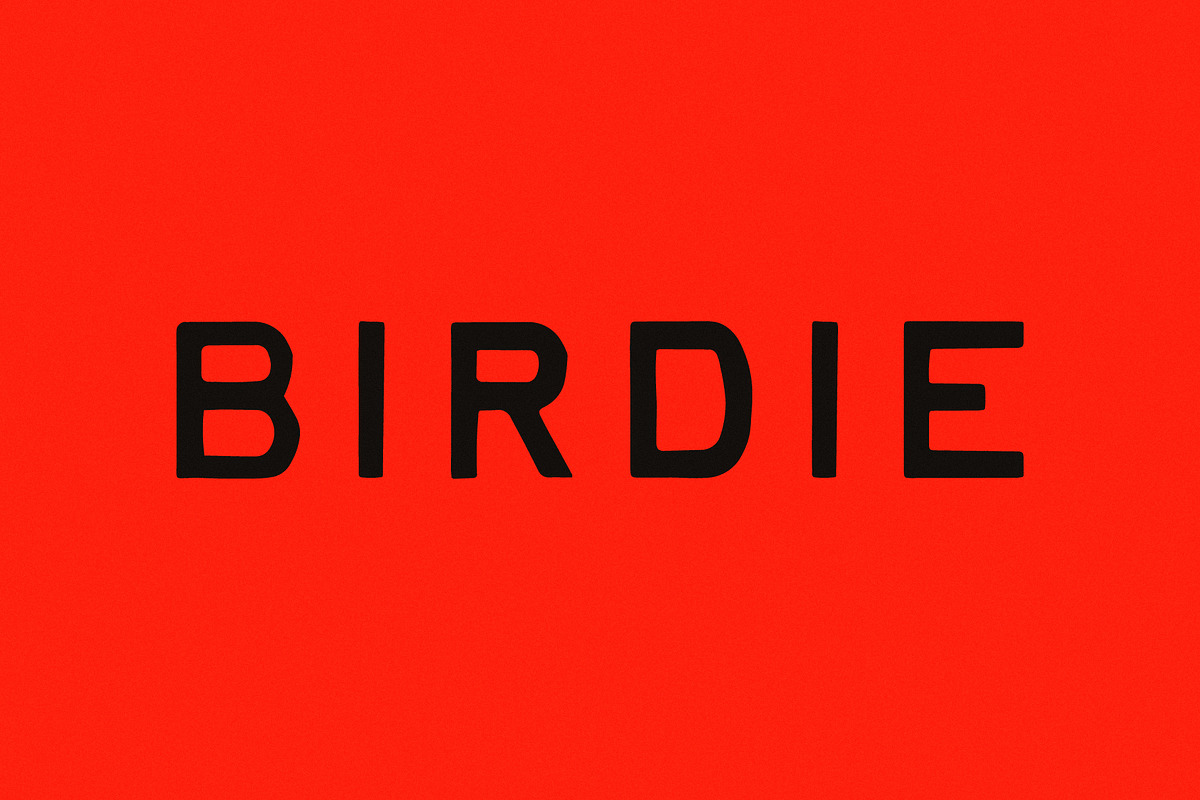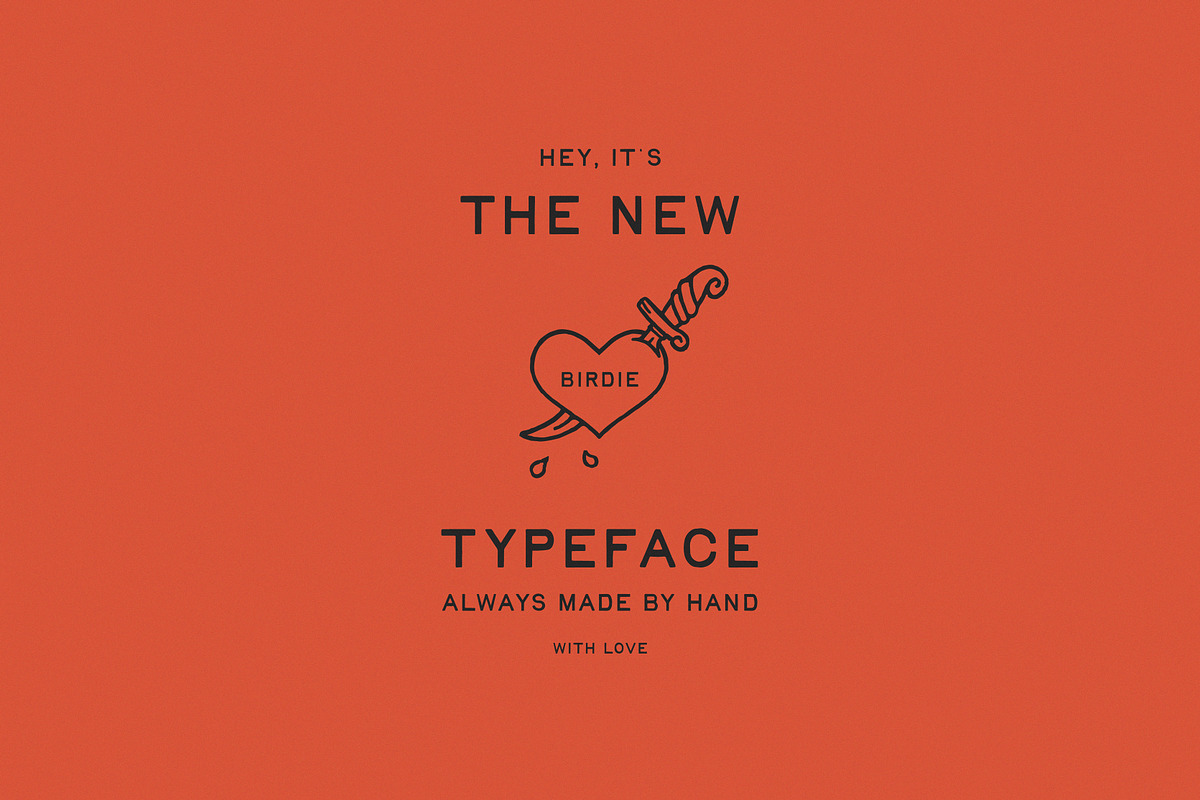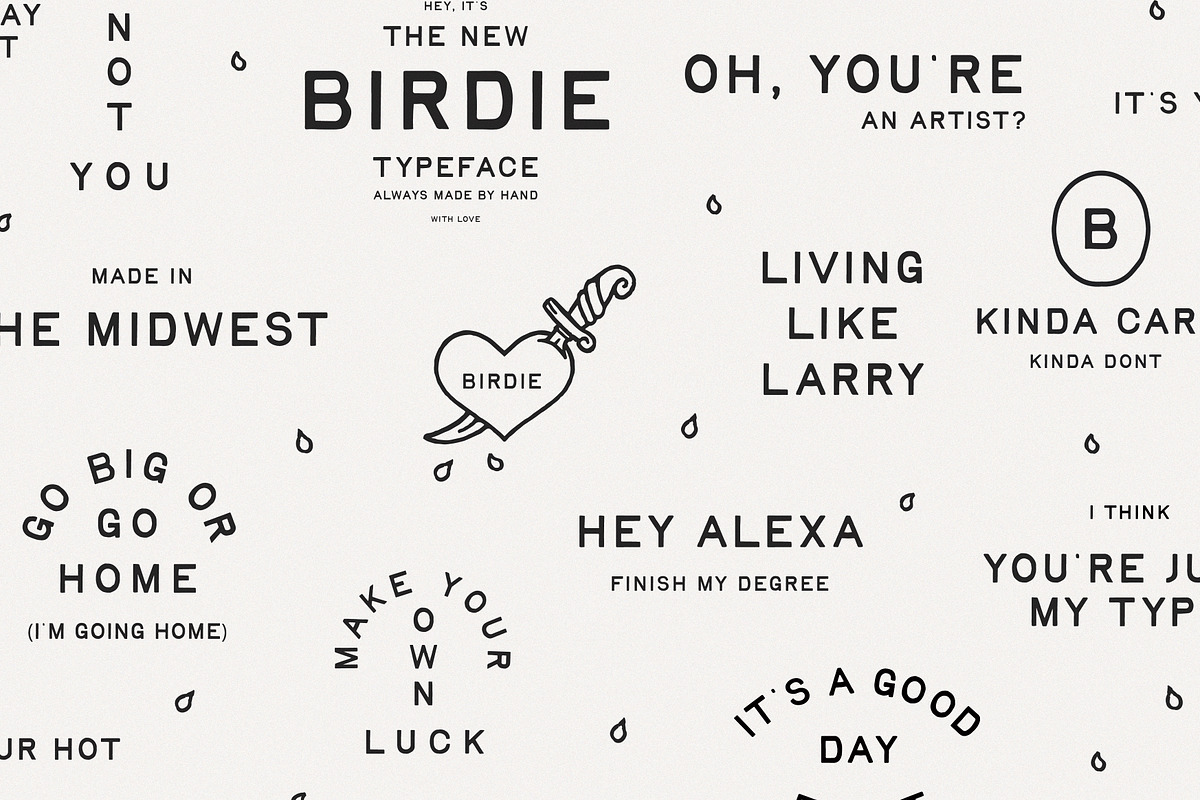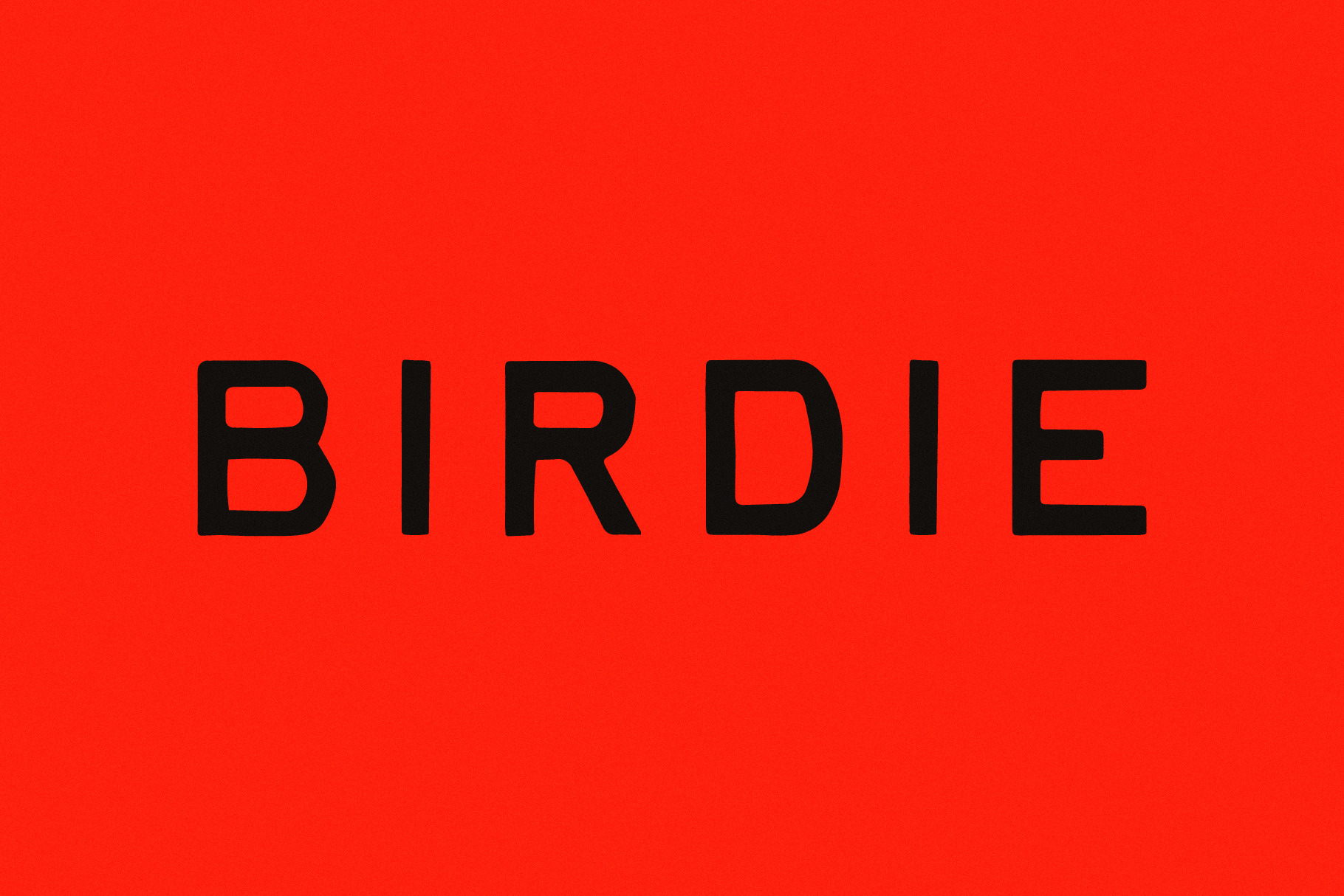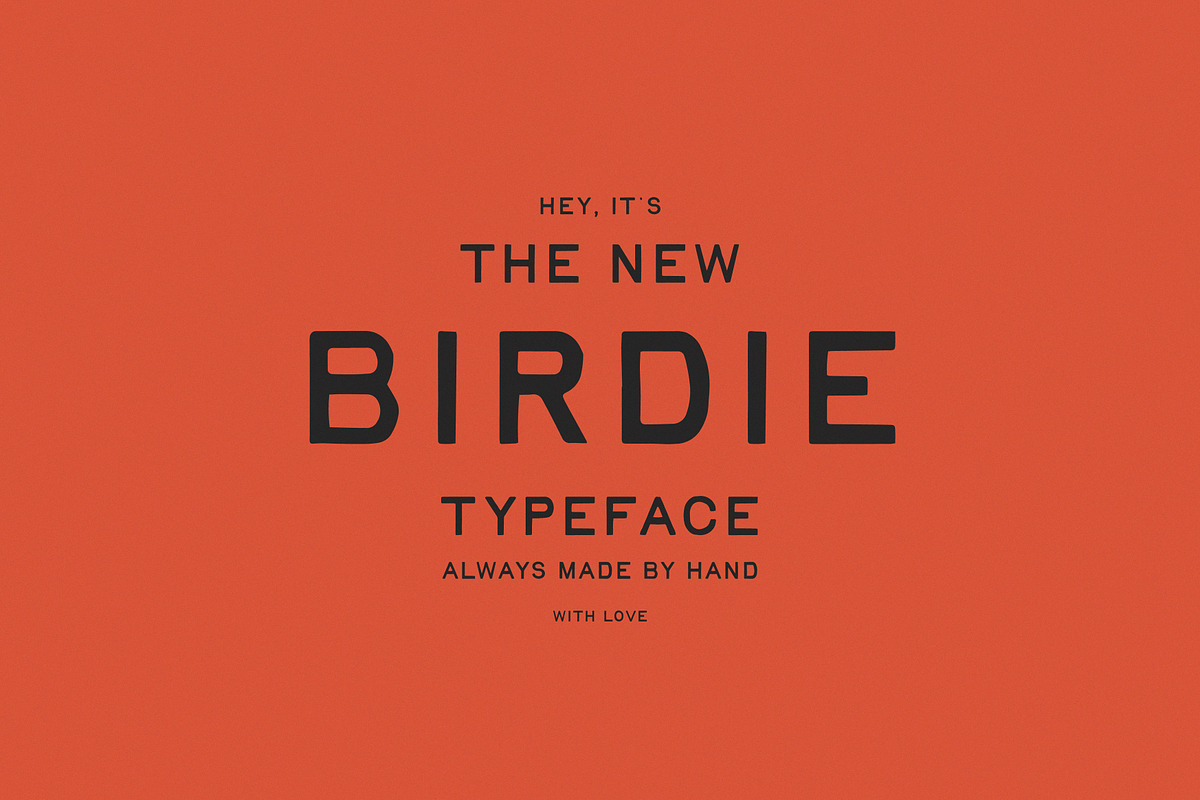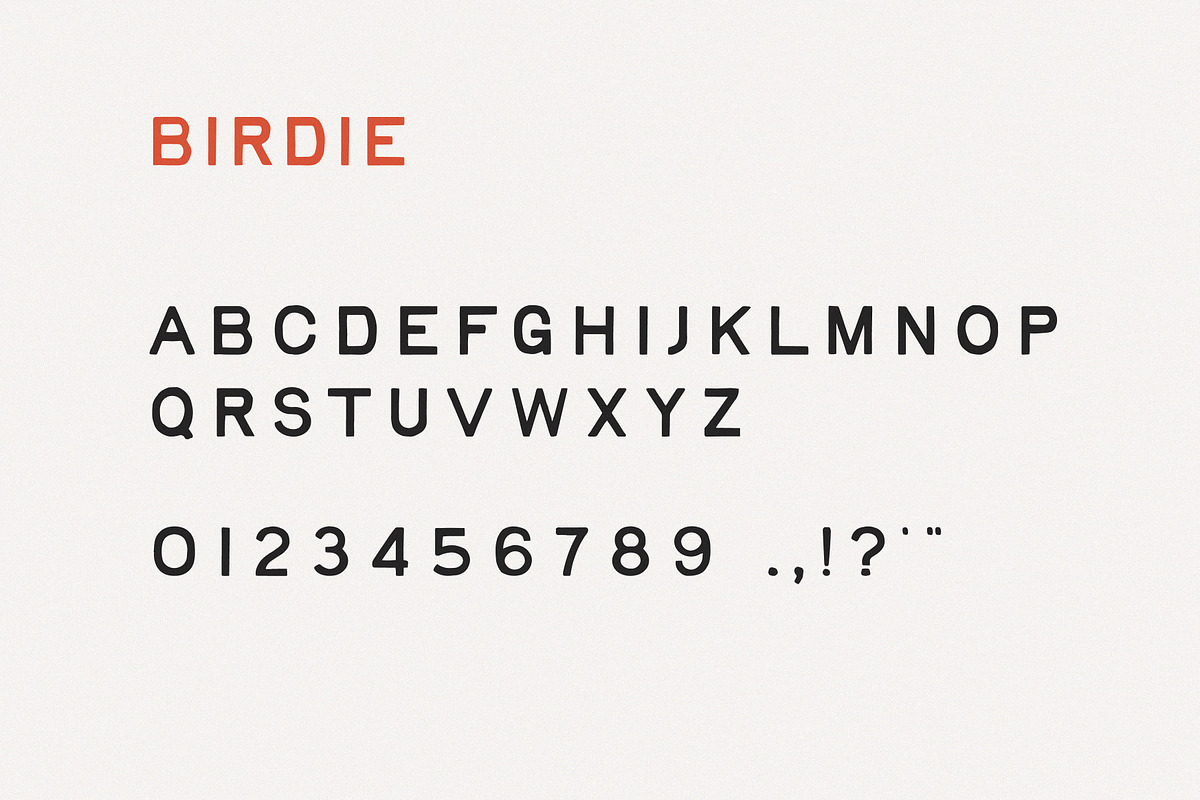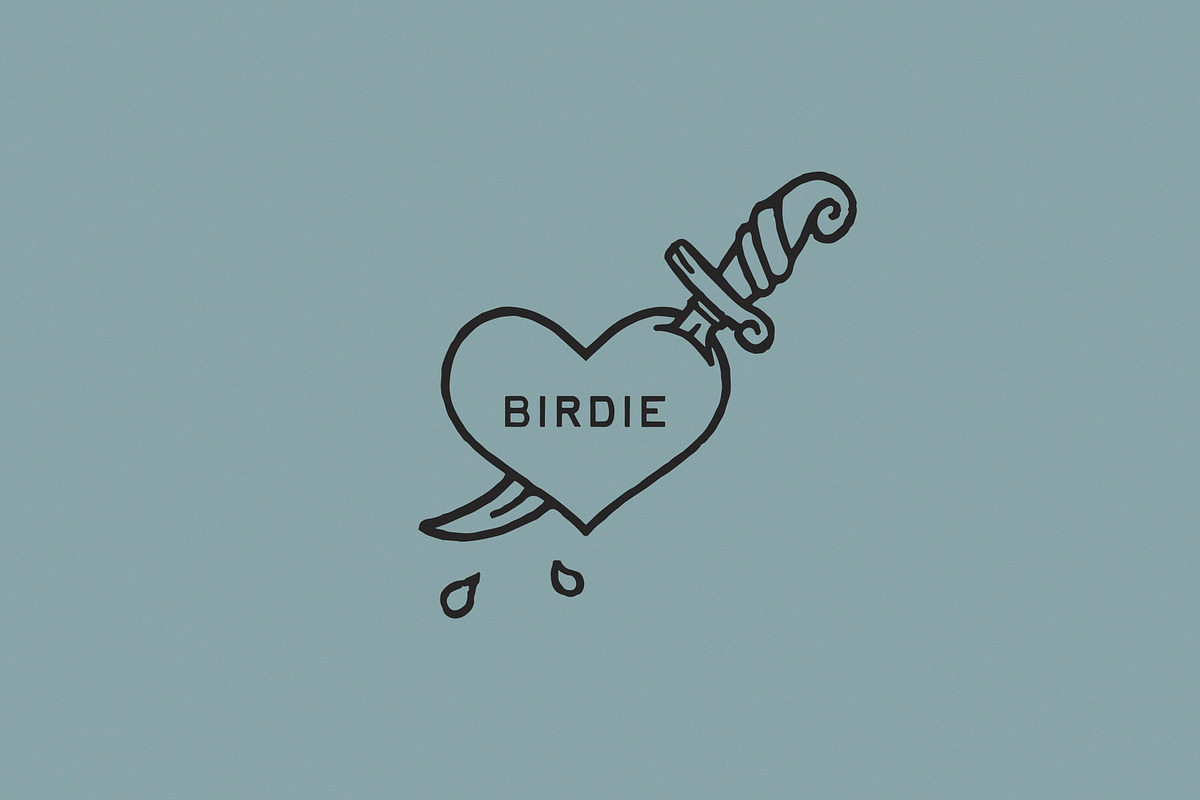
Birdie | Vintage Print Font
Officially the second-best font around.
Your mom's favorite font dropped right here in this little store a few years ago, and now, it might even be your dad's. Birdie has entered its prime with two new sets of contextual alternates for the upper/lowercase alphabet and digits.
Extensive support for all Western European languages, including Icelandic and Welsh.